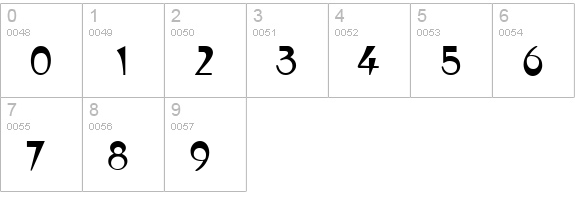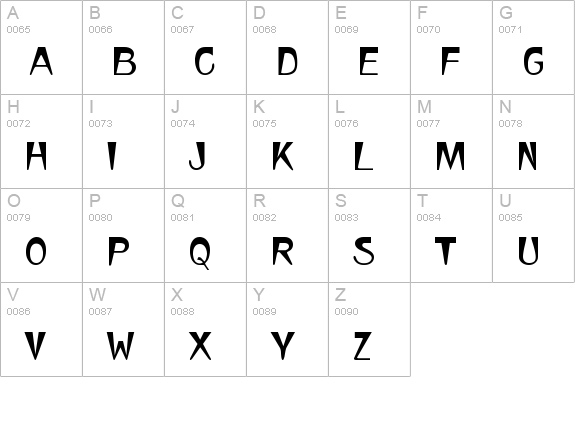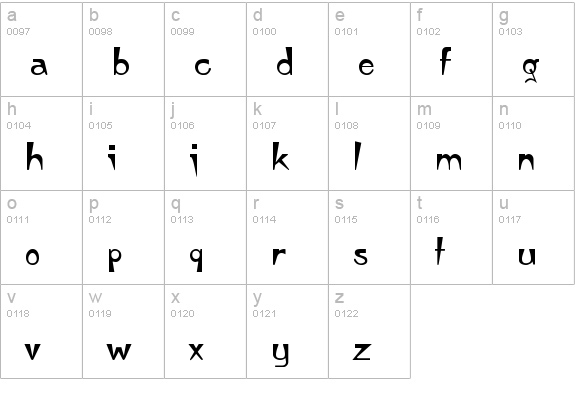
Japanette-Regular Font Details
Japanette-Regular is the standard, neutral variant in the Japanette typeface family \xE2\x80\x94 well suited to general body text, paragraphs, and standard typographic work.
Japanette-Regular is a stunning and elegant font that exudes a sense of sophistication and charm. With its sleek lines and graceful curves, this font is perfect for a wide range of design projects, from branding to invitations to signage. The clean and modern look of Japanette-Regular makes it a versatile choice for both print and digital applications. Not only does Japanette-Regular offer a timeless aesthetic appeal, but it is also free for anyone to download and use. This means that you can add a touch of class to your projects without having to worry about breaking the bank. You can easily access and download Japanette-Regular at FontsMarket.com, where you can explore a wide selection of high-quality fonts for all your design needs. Whether you're working on a personal project or a professional design, Japanette-Regular is sure to elevate your work with its sophisticated and refined look. Download this beautiful font today and see how it can bring a touch of elegance to your designs.